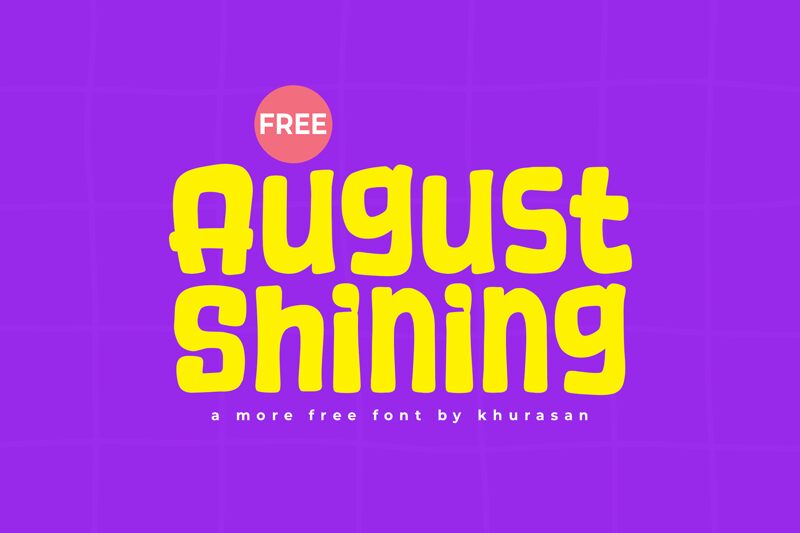
August Shining font family by Khurasan contains 2 lively fonts for a friendly and modern look. This free font family adopts an informal approach with rounded geometrical shapes that gives off a cartoonish feeling making it gentle and appropriate for youth-oriented designs. The character set of these fonts is simple and mainly includes the Latin alphabet.
This font may be used in applications where a youthful touch is needed like educational websites, toys advertisements, children’s books, mockups for games or apps, stationery items, playful branding design, posters, or others.